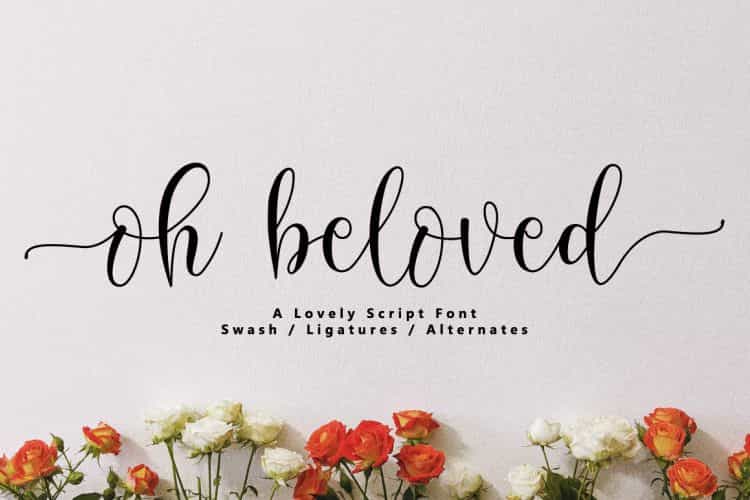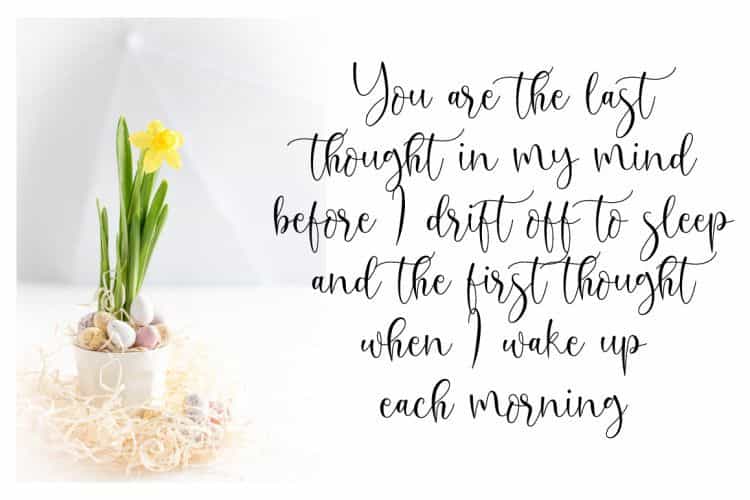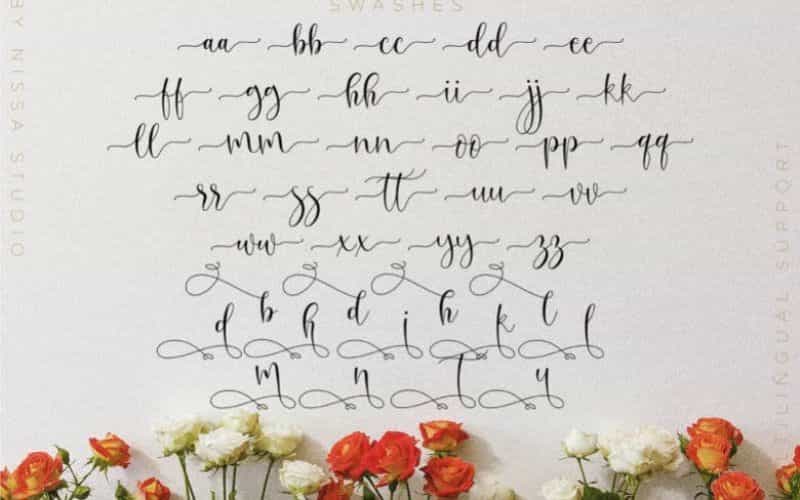
Oh Beloved is a gorgeous script font with a sophisticated, elegant, and contemporary appearance. This will be a unique and personalized addition to any design project!